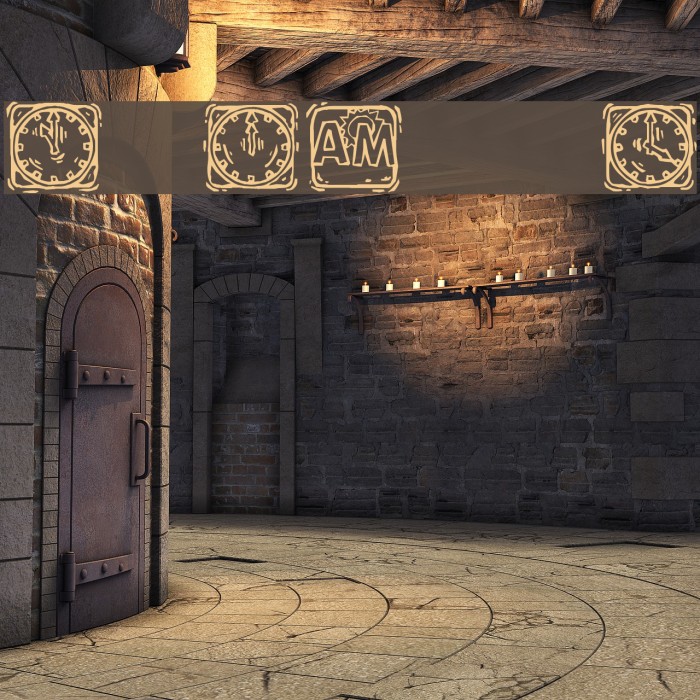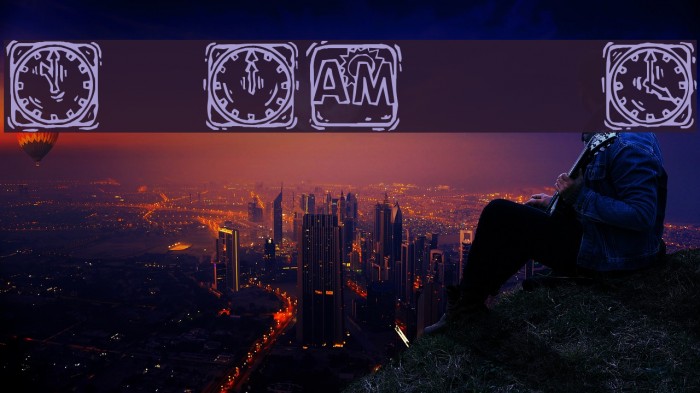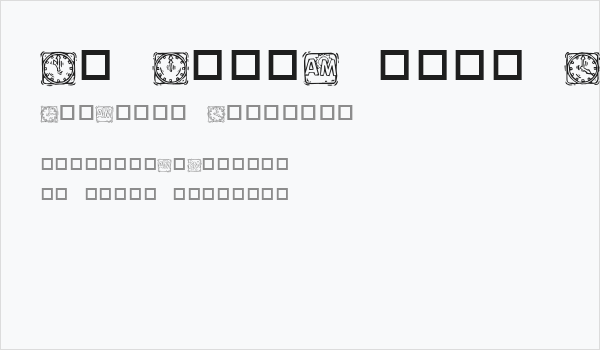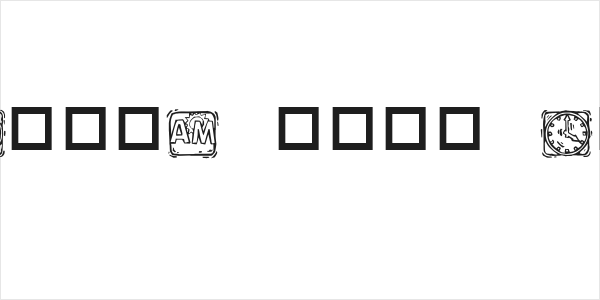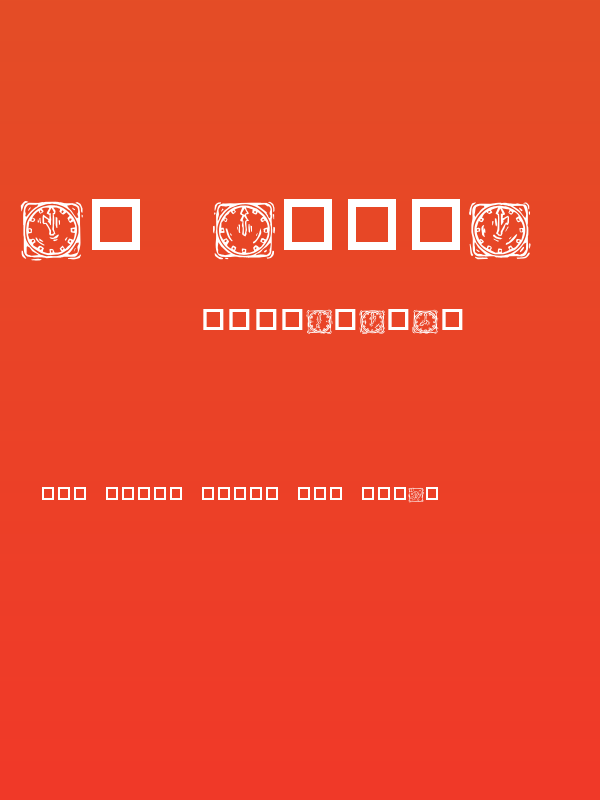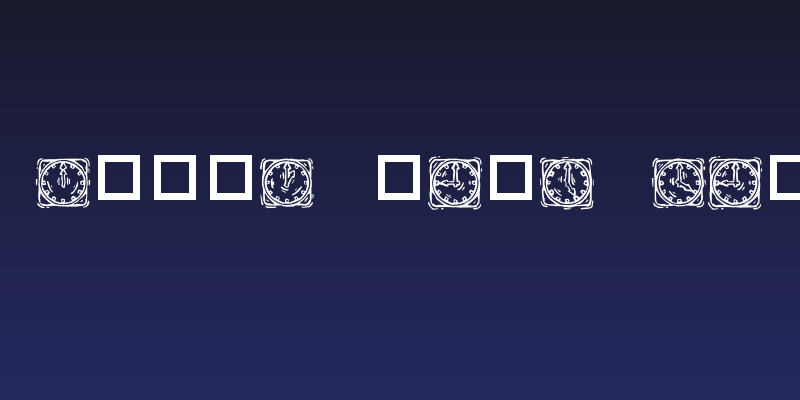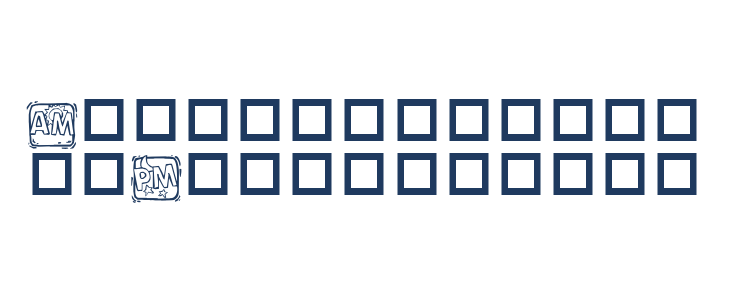
KR Lotsa Time Dings Font
This is not a traditional font but rather a collection of decorative dingbats featuring clock faces and time-related symbols. The design includes various clock illustrations and AM/PM indicators, each enclosed in a square with a hand-drawn, sketch-like style. The elements are whimsical and playful, with a consistent theme centered around time. These graphics are ideal for projects that require a creative and thematic approach to time representation.
| Use Case | Logos, Decorative elements |
| Proposed Projects | Ideal for creative projects like event invitations, educational materials about time, or themed posters and flyers. |